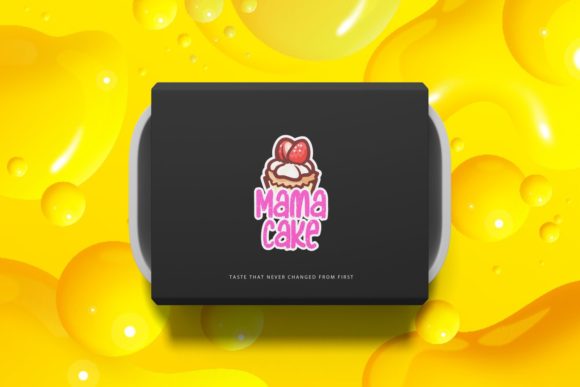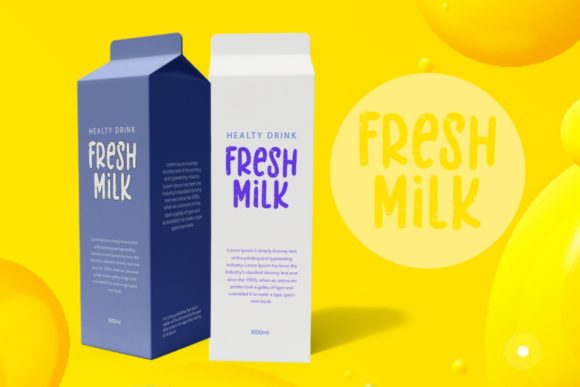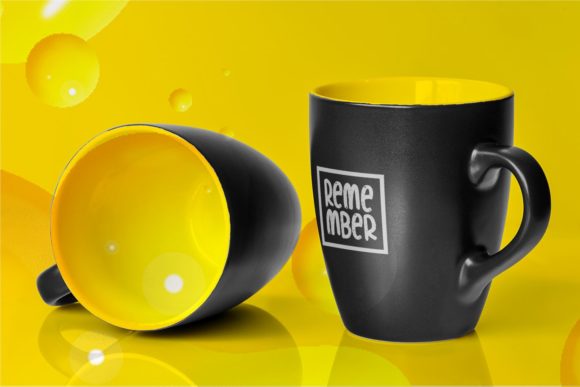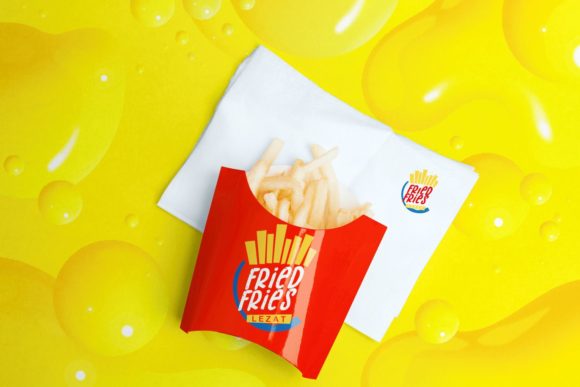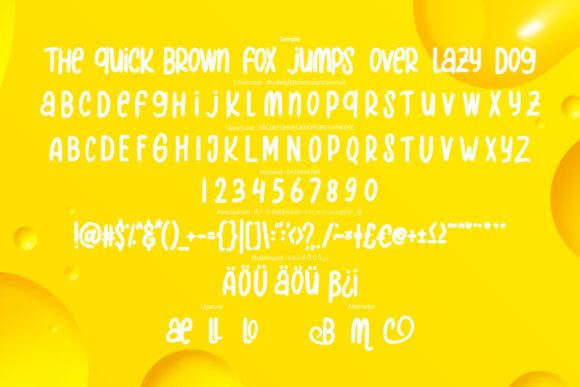
Introducing Farobe Font: The Perfect Blend of Fun and Elegance
Are you a designer, crafty DIY enthusiast, or simply someone who loves to add a personal touch to their creative projects? Look no further than Farobe Font, a unique and versatile display font that’s sure to elevate your work to the next level. With its incredibly rough feel and elegant charm, Farobe is the perfect choice for anyone looking to add a touch of personality to their designs.
The Characteristics of Farobe Font
So, what makes Farobe Font so special? For starters, its rough texture gives it a delightfully handmade feel that’s perfect for creating unique and eye-catching designs. At the same time, its elegant lines and curves ensure that it remains sophisticated and refined, making it suitable for a wide range of creative projects. Whether you’re looking for fonts for Instagram, calligraphy scripts for DIY projects, or simply want to add a personal touch to your digital designs, Farobe is the perfect choice.
Uses for Farobe Font
Farobe Font is incredibly versatile, making it suitable for a wide range of creative projects. Here are just a few ideas to get you started:
- Instagram Fonts: Add a touch of personality to your Instagram posts and stories with Farobe Font. Its fun and elegant design makes it perfect for creating eye-catching captions and quotes.
- Calligraphy Scripts: Use Farobe Font to create beautiful calligraphy scripts for your DIY projects. Its rough texture and elegant lines make it perfect for adding a personal touch to wedding invitations, greeting cards, and more.
- Digital Designs: Farobe Font is also perfect for digital designs, such as social media graphics, blog posts, and website headers. Its unique texture and elegant design make it sure to stand out.
- Crafting and Scrapbooking: If you’re a crafter or scrapbooker, you’ll love Farobe Font. Use it to add a personal touch to your projects, such as journal cards, tags, and titles.
Why Choose Farobe Font?
With so many fonts to choose from, why should you choose Farobe Font? Here are just a few reasons:
- Unique Texture: Farobe Font’s rough texture sets it apart from other fonts. Its handmade feel adds a touch of personality to any design.
- Elegant Design: Despite its rough texture, Farobe Font is incredibly elegant. Its refined lines and curves make it perfect for creating sophisticated designs.
- Versatility: Farobe Font is incredibly versatile. Use it for digital designs, print projects, or anything in between.
- Easy to Use: Farobe Font is easy to use, even if you’re new to design. Its clean lines and simple curves make it easy to read and work with.
Tips for Using Farobe Font
Here are a few tips for getting the most out of Farobe Font:
- Experiment with Sizes: Farobe Font looks great in a variety of sizes. Experiment with different sizes to find the one that works best for your project.
- Pair with Other Fonts: Farobe Font pairs well with other fonts. Try pairing it with a clean sans-serif font for a bold and eye-catching design.
- Add Texture: Farobe Font’s rough texture is one of its best features. Consider adding additional texture to your design to really make it pop.
Farobe Font is a unique and versatile display font that’s perfect for designers, crafty DIY enthusiasts, and anyone looking to add a personal touch to their creative projects. Its rough texture and elegant design make it suitable for a wide range of projects, from Instagram fonts to calligraphy scripts. With its ease of use and versatility, Farobe Font is sure to become a staple in your design toolkit. So why wait? Download Farobe Font today and start creating!